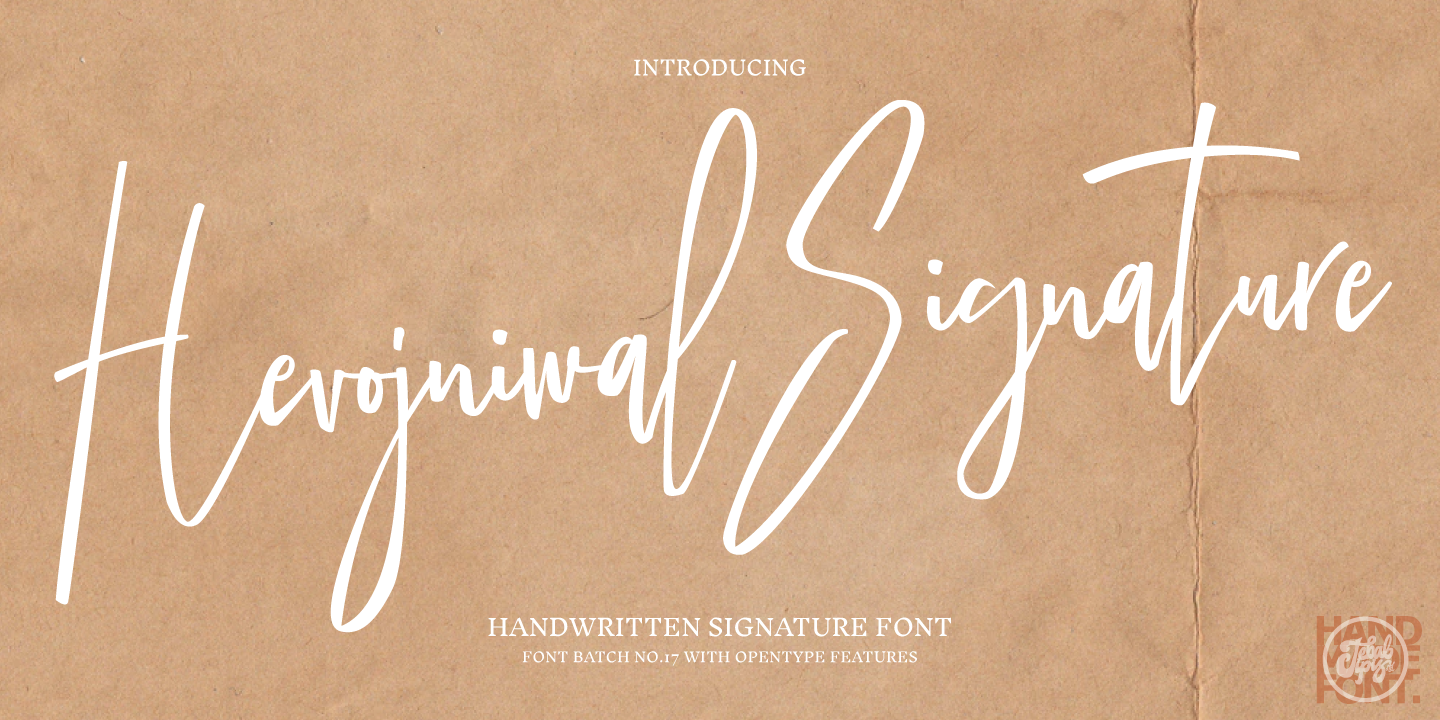
Hevojniwal Signature Font is perfect for luxury personal branding, executive business cards, high-end wedding invitations, sophisticated logo designs, premium stationery collections, elegant document headers, exclusive autograph designs, and refined personal identity materials.
Hevojniwal Signature Font is exciting because it captures the distinctive elegance and personal sophistication of handwritten signatures through its flowing character design that embodies the unique artistry of individual expression and the refined beauty of personalized calligraphy. Its signature styling and personal appeal make it the perfect choice for brands that want to communicate authenticity, exclusivity, and the intimate power of personal touch.
Hevojniwal Signature Font family includes multiple handwritten variations: Hevojniwal Signature Regular, Hevojniwal Signature Bold, Hevojniwal Signature Light, Hevojniwal Signature Script, Hevojniwal Signature Flourish, and Hevojniwal Signature Elegant, along with calligraphic decorative elements and signature symbols, providing designers with comprehensive tools for creating authentic personal and luxury-themed brand experiences.
When exploring signature typography solutions, Hevojniwal Signature Font Free Download emerges as the definitive choice for designers working on personal branding and luxury projects that require genuine handwritten sophistication and exclusive appeal. This distinctive typeface embodies the essence of personal signature artistry while offering the technical precision that contemporary luxury brands and personal branding specialists require. The font's handwritten character and signature authenticity create immediate connections with audiences who appreciate personal touch and exclusive experiences.
Luxury professionals consistently choose Hevojniwal Signature Font for projects requiring authentic signature sophistication and powerful personal appeal. Its expertly crafted letterforms feature handwritten influences that work exceptionally well in both large-scale luxury brand displays and intimate personal stationery applications. The font's ability to convey personal authenticity and signature elegance while maintaining strong brand recognition makes it invaluable for comprehensive identity systems in the luxury services, personal branding, and exclusive experience sectors.
Whether you're developing personal brand identities, creating luxury service marketing materials, or designing exclusive event invitations, Hevojniwal Signature Font delivers the authentic signature character and personal appeal that resonates with audiences who appreciate handwritten elegance and exclusive personal experiences. Its signature significance and elegant design ensure your projects capture the intimate beauty of personal expression while maintaining contemporary professional standards that attract discerning clients and luxury experience enthusiasts.